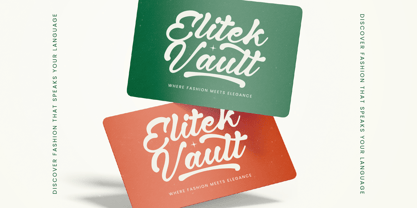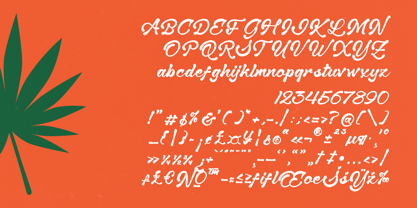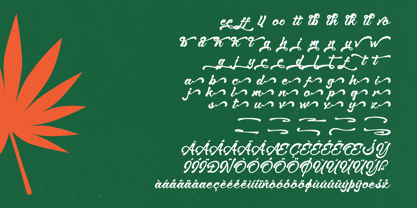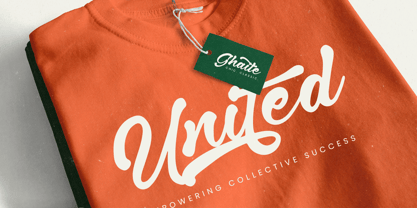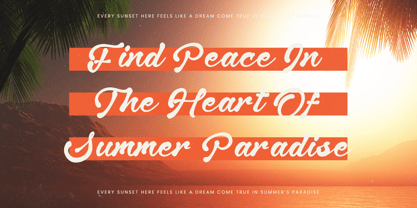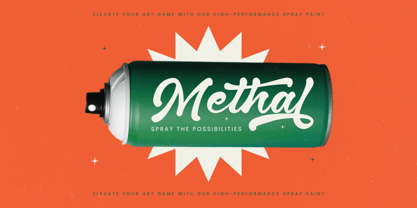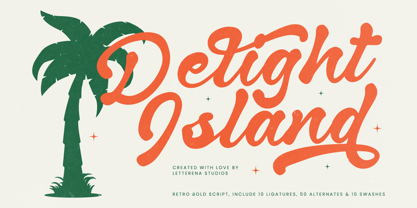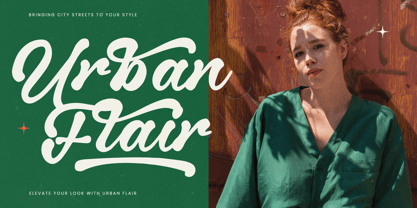
Delight Island
by Letterena Studios
The Delight Island Font Family was designed by Heru Utama Putra and published by Letterena Studios. Delight Island contains 2 styles and family package options. More about this family
Delight Island – Retro Bold Script , from Letterena, is a Luxury Script font, suitable for any projects such as: logos, branding projects, homeware designs, product packaging, mugs, quotes, posters, shopping bags, t-shirts, book covers, name card, invitation cards, greeting cards, label, photography, watermark, special events, and all your other luxury and beautiful projects that need a Luxury Script taste.